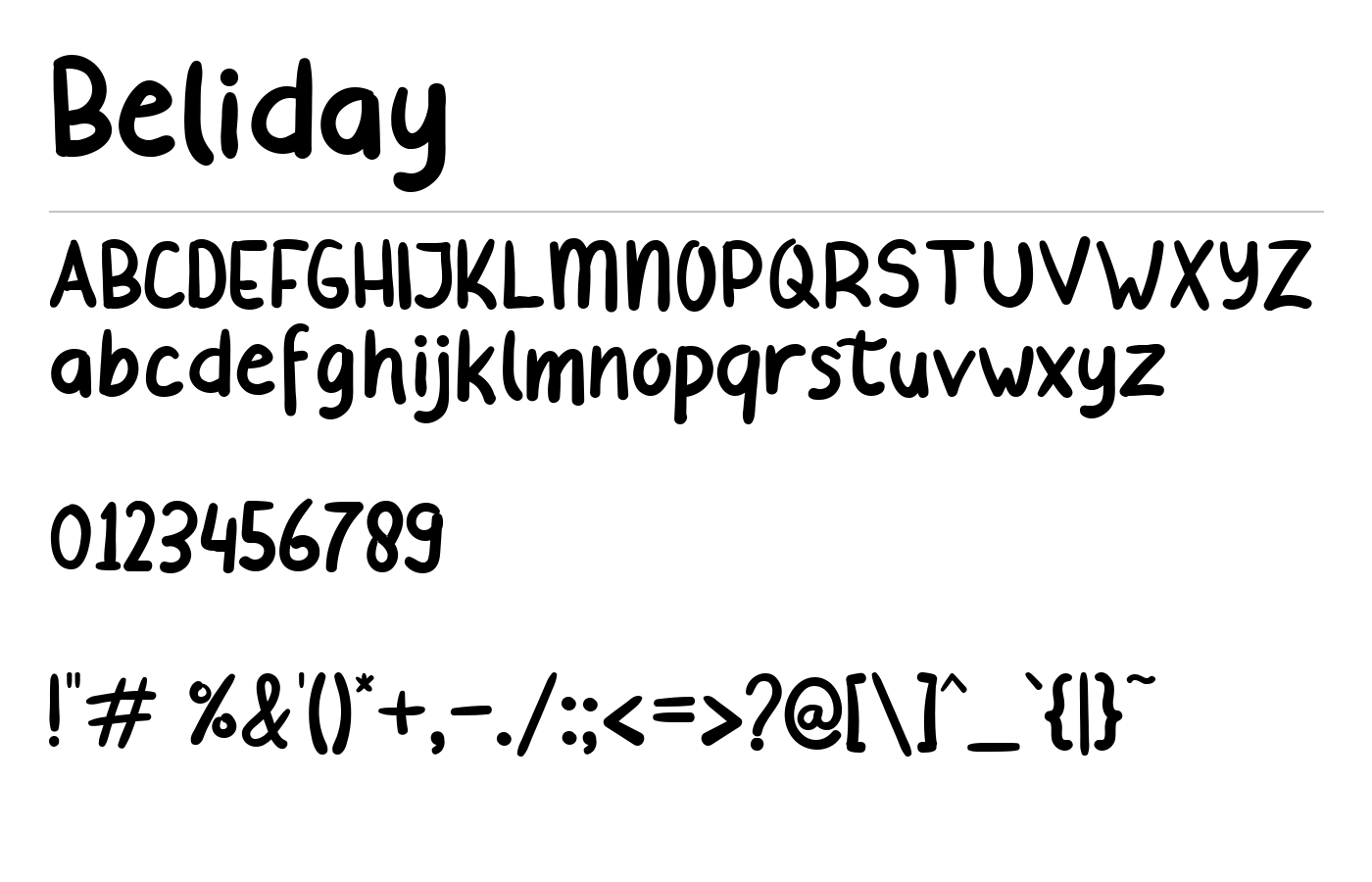
Beliday is a charming and friendly handwritten sans serif font with a playful, casual feel. Its rounded, slightly irregular letterforms and moderate x-height give it a warm, approachable personality ideal for creative, informal, or child-focused designs. This font works well for logos, packaging, invitations, and websites that want to convey a lighthearted, personal touch.
Beliday Font
About Beliday Font